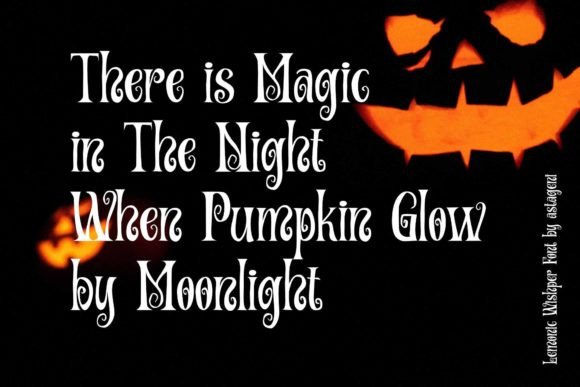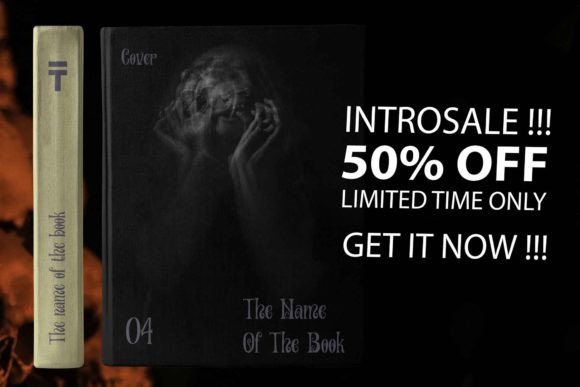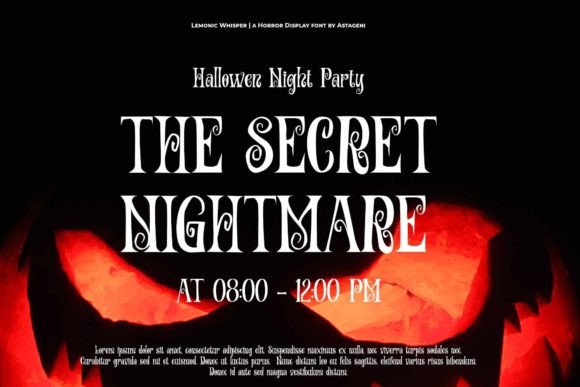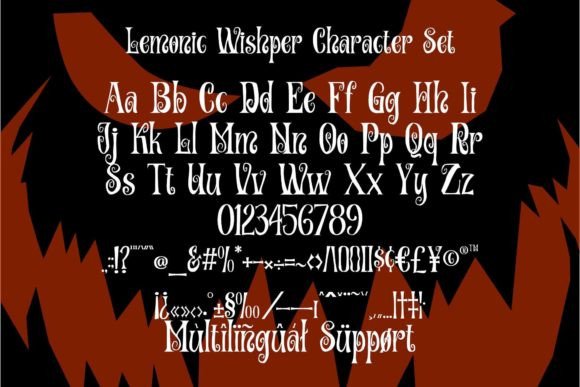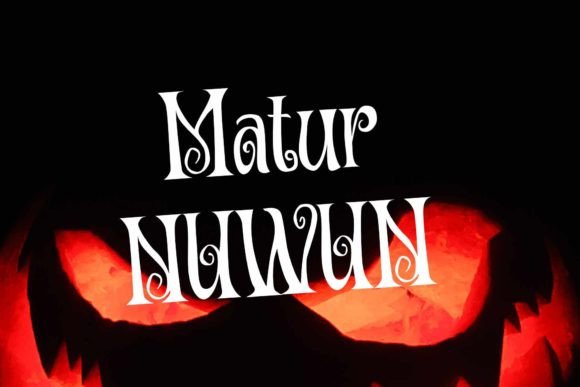
Introduction to Lemonic Whisper Font
Lemonic Whisper Typeface is designed for the needs of design concepts themed about Halloween and events in October and November.
Lemonic Whisper Typeface has a horror character with a character shaped like a distorted character, making the horror Halloween-themed design concept even better and unique Lemonic Whisper Typeface is perfect for magazine cover designs, brochures, and flyers.
Key Features of Lemonic Whisper Font